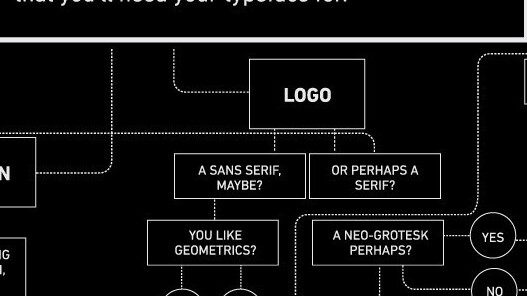
The world of typography is a vast, rich landscape of subtle curves, geometry, ink and pixels…unless of course you’ve only heard of Helvetica, Comic Sans, Times New Roman and Georgia. In that case, you must admit your inexcusable ignorance and use this flow chart: So You Need A Typeface:
Here’s a preview of the chart, up close:
Of course, this flowchart (found on Visual.ly) will never replace a skilled designer or typographer, but it’s not the worst place for you to start. Also, some of the results and questions here are quite hilarious, although that might just be some of that famous designer humor we all hear so much about.